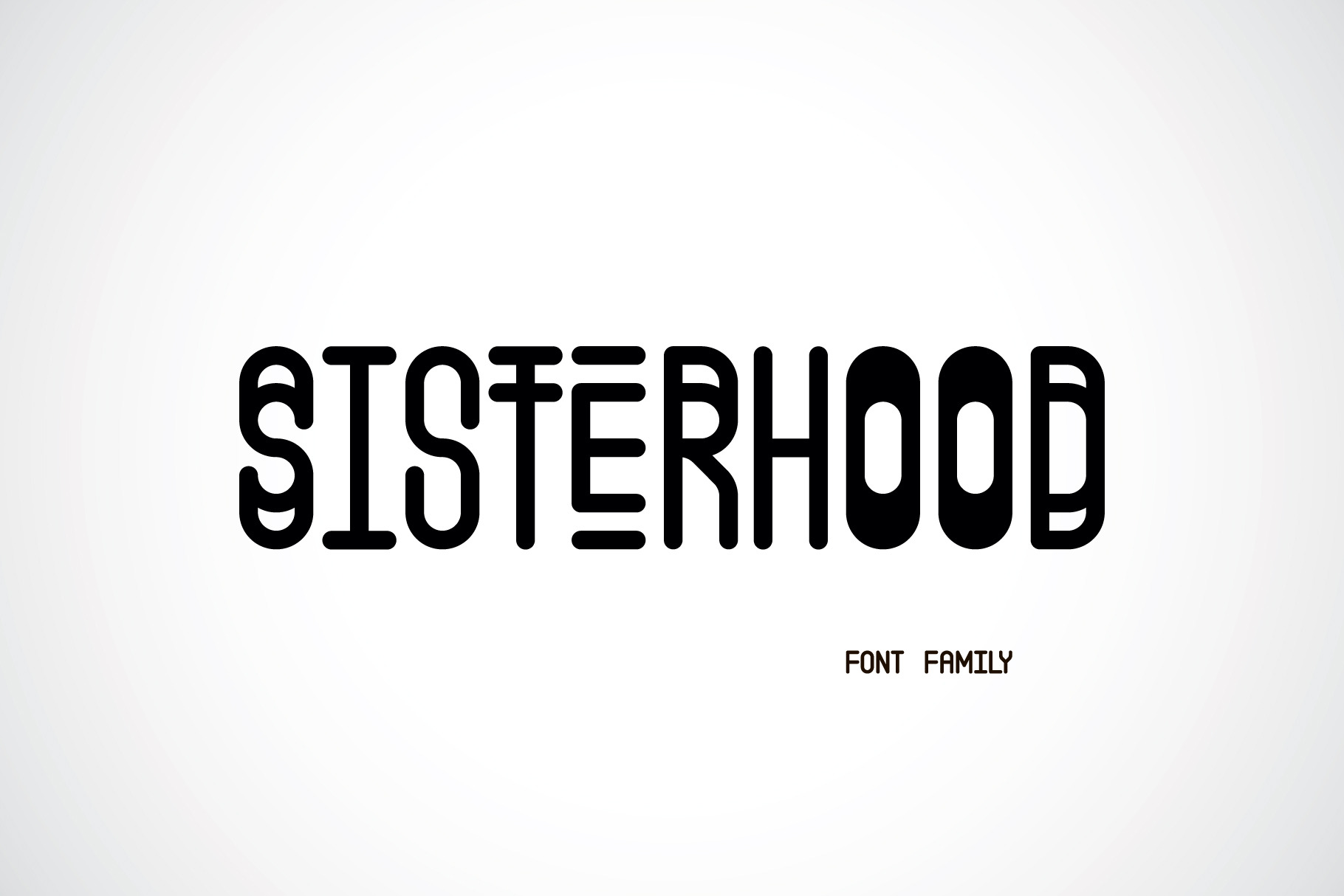
SISTERHOOD Family Font
SISTERHOOD is simple modern typeface. Includes 16 fonts. Font includes 2 styles: soft, rounded and angular. Each of these styles includes 4 font : Regular sister, younger sister, elder sister and black sister + Italic. You can play with this font and use them all at once in the same word. It is cheerful! Enjoy!